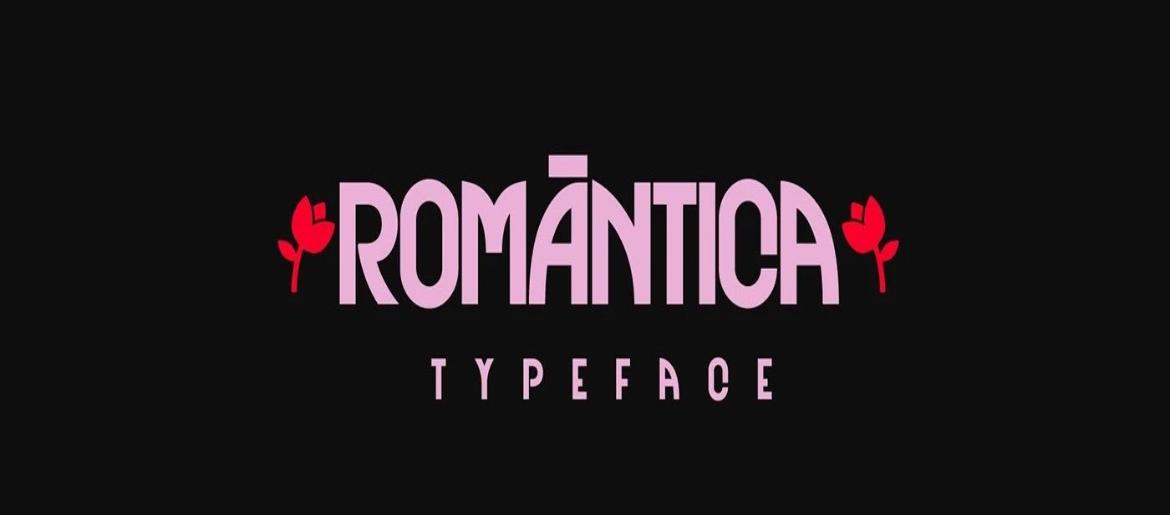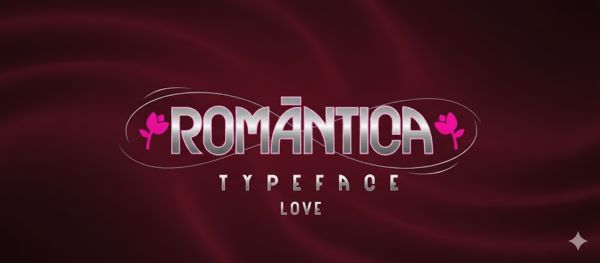
Romantica Font
Romantica font
Romantica Font is a retro display typeface created by Julian Roman, inspired by the romantic and vibrant visual culture of South and Central America during the 1960s and 1970s. It features lively curves and nostalgic personality, making it ideal for posters, branding, packaging, and editorial designs, standing out as a colorful and expressive option among vintage-inspired free fonts collections.
➤ Font Name: Romantica
➤ Designer: Julian Roman
➤ Style: Display